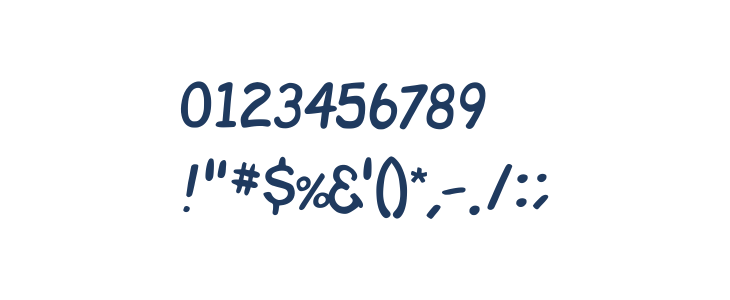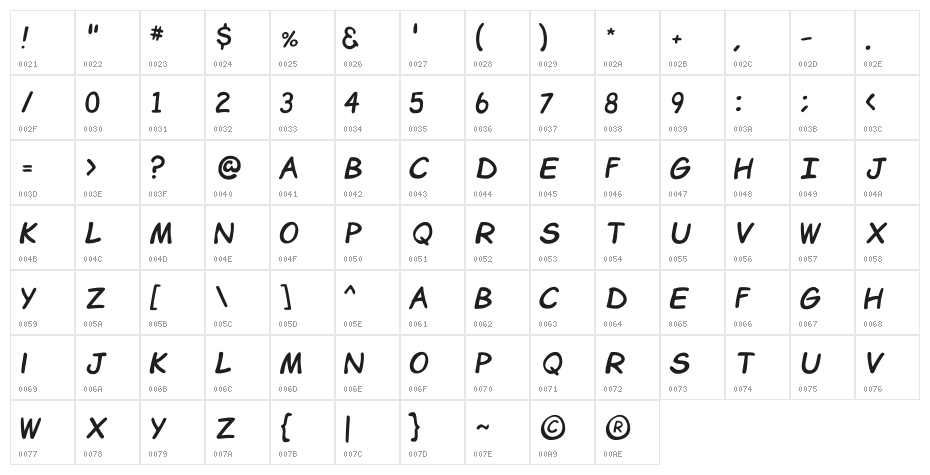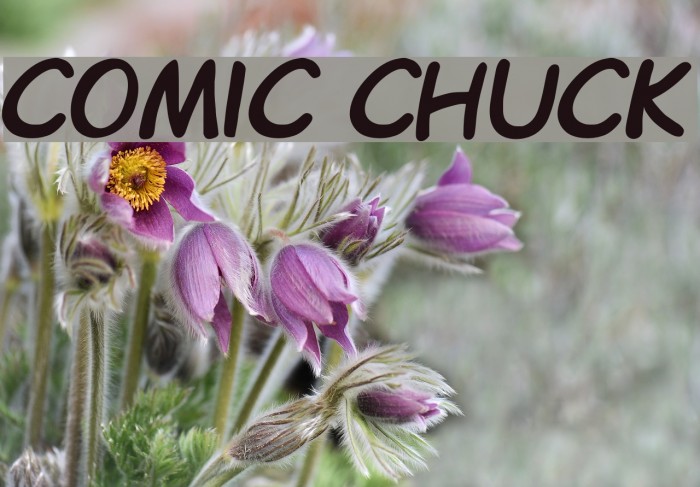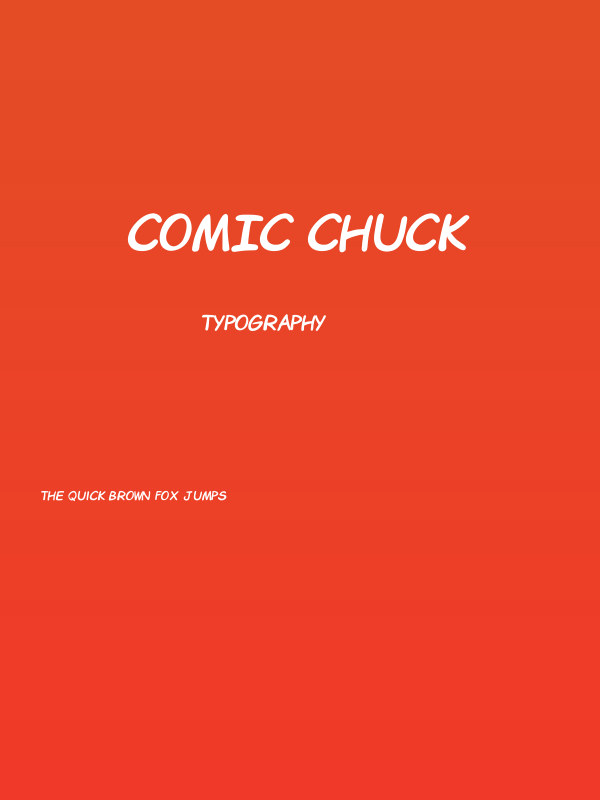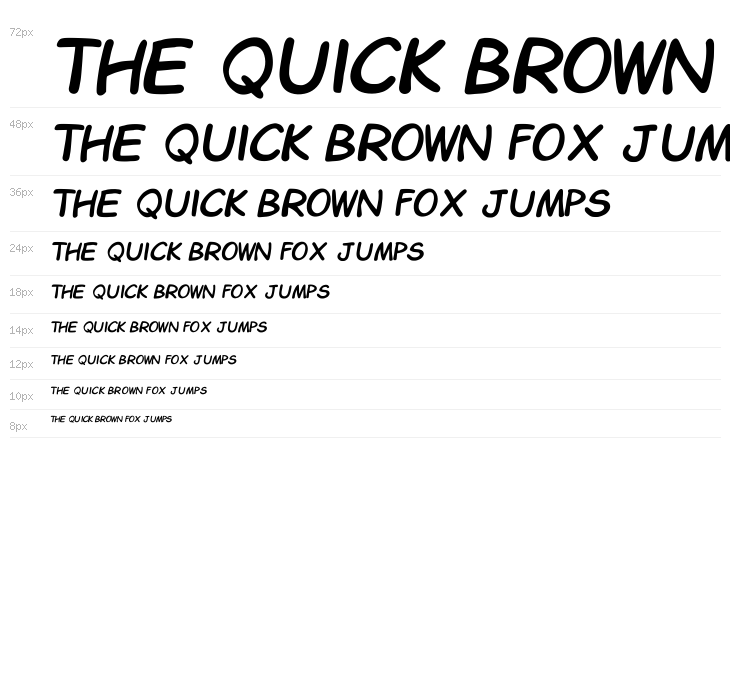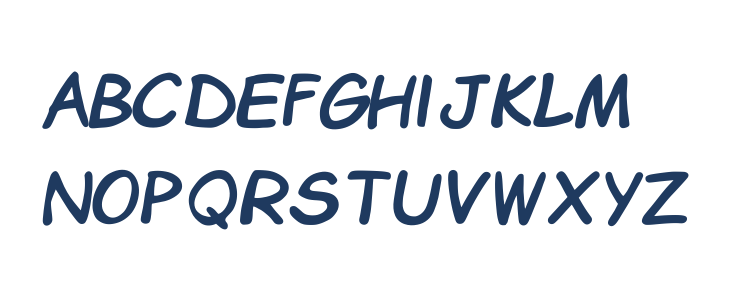
Comic Chuck Font
Comic Chuck Description
This playful and bold font features a handwritten style with a casual and friendly appearance. The letters are slightly slanted, giving it a dynamic and lively feel. The strokes are thick and consistent, providing a strong presence on the page. The characters are well-spaced, ensuring readability while maintaining a fun and informal tone. This font is ideal for projects that require a touch of humor or a personal touch, such as comic strips, children's books, or playful branding materials.
Overall StylePlayful
Proposed ProjectsComic strips, children's books, playful branding, informal invitations.